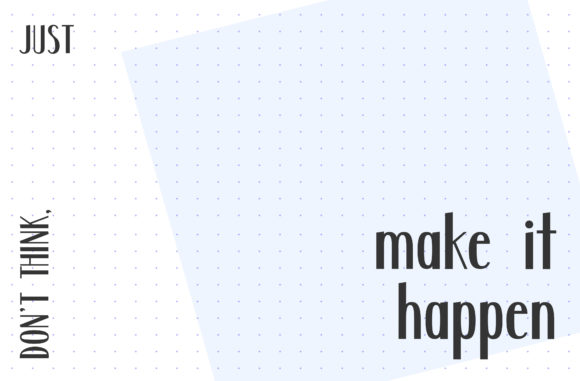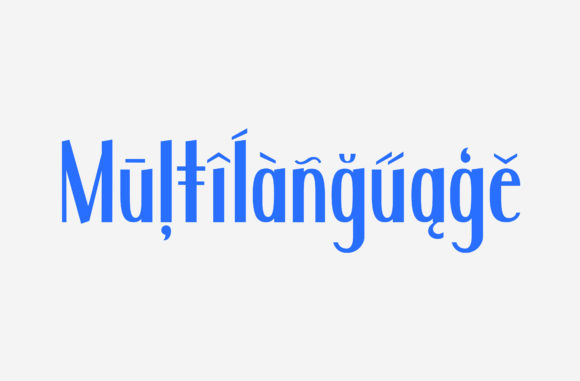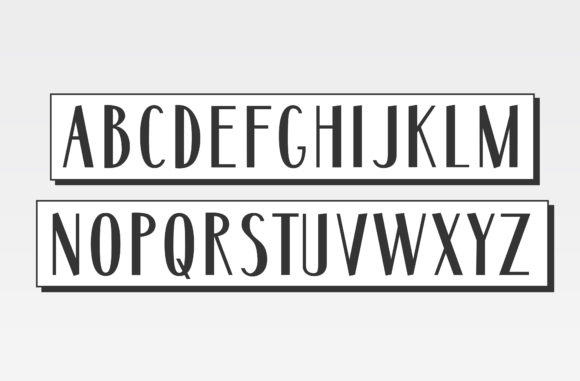
Introduction to Sao Miguel Font
The Sao Miguel is a sans serif font with retro vibes and clean lines.
This unique font will help you create an unforgettable design .
Sao Miguel Font offers exceptional quality and versatility, making it a valuable addition to your design toolkit. Whether you’re creating for personal projects or commercial use, Sao Miguel Font delivers professional results.